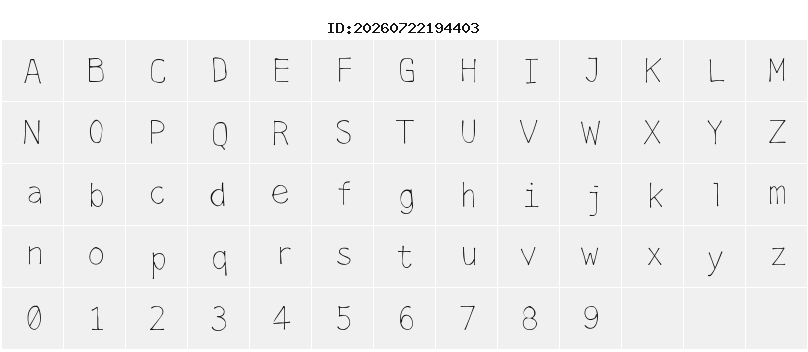
menlotus Preview
• Font Name: menlotus
• Full Font Name: menlotus
• PostScript Name: menlotus
About menlotus.ttf
menlotus.ttf is a modern, elegant sans-serif font designed for ultimate readability and visual harmony. Perfect for branding, headlines, web design, and print materials.